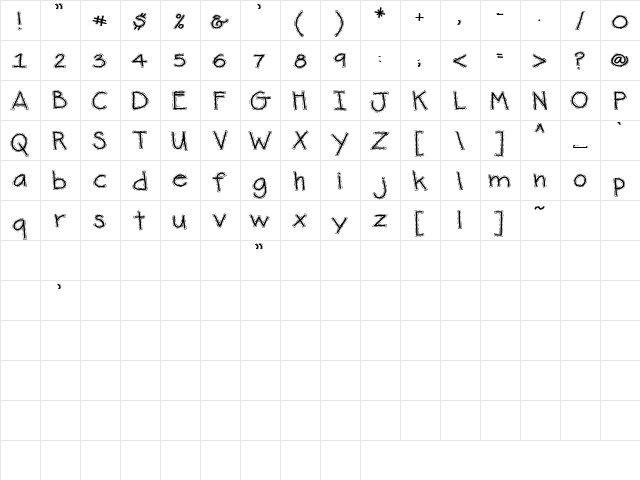
Lindsay Beehive Regular
Design Context for Lindsay Beehive Typeface
Lindsay Beehive is a composed and adaptable typeface that performs quietly and consistently across a wide range of design contexts.
Pro Tip: Use Lindsay Beehive in both headline and body roles to test its range before committing to a single application.